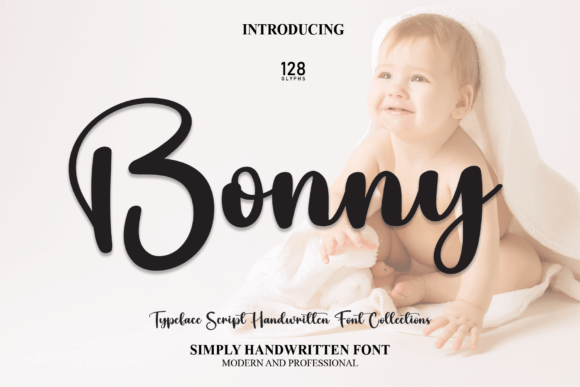
Bonny Font: Where Elegance and Charm Embolden Your Designs
Journey into the realm of Bonny Font, a mesmerizing script font that captures the essence of sophistication and allure. Crafted with meticulous attention to detail, each letter exudes grace and fluidity, evoking the beauty of handwritten artistry. Immerse yourself in a world where your designs bloom with elegance, leaving a lasting impression on the hearts of your audience.
With Bonny Font, you unlock a universe of creative possibilities. Its timeless charm adds a touch of warmth to wall displays, transforming them into captivating centerpieces. Elevate wedding invitations with the allure of handwritten elegance, making each one a cherished keepsake. Unleash your creativity on social media posts and logos, captivating your audience with a distinctive visual language. Ignite your imagination and design product packaging that exudes exclusivity, enhancing the perceived value of your offerings.
Every element of Bonny Font is meticulously crafted to evoke a sense of nostalgia and authenticity. Its delicate strokes and graceful curves create designs that resonate with warmth and familiarity. Embrace the charm of Bonny Font in your product designs, adding a personal touch that sets your creations apart. Create labels that whisper elegance, adding a touch of sophistication to every product. Infuse your photographs with a timeless charm, capturing moments with an artistic flair. Design watermarks that leave an indelible mark of artistry, protecting your work with a touch of grace.
Explore the versatility of Bonny Font and let your imagination soar. Craft invitations that reflect the joy and anticipation of special occasions. Personalize stationery with a touch of handwritten elegance that transforms everyday moments into cherished memories. Whatever your project may be, Bonny Font is your trusted companion, guiding you to create designs that inspire, captivate, and leave an enduring legacy.